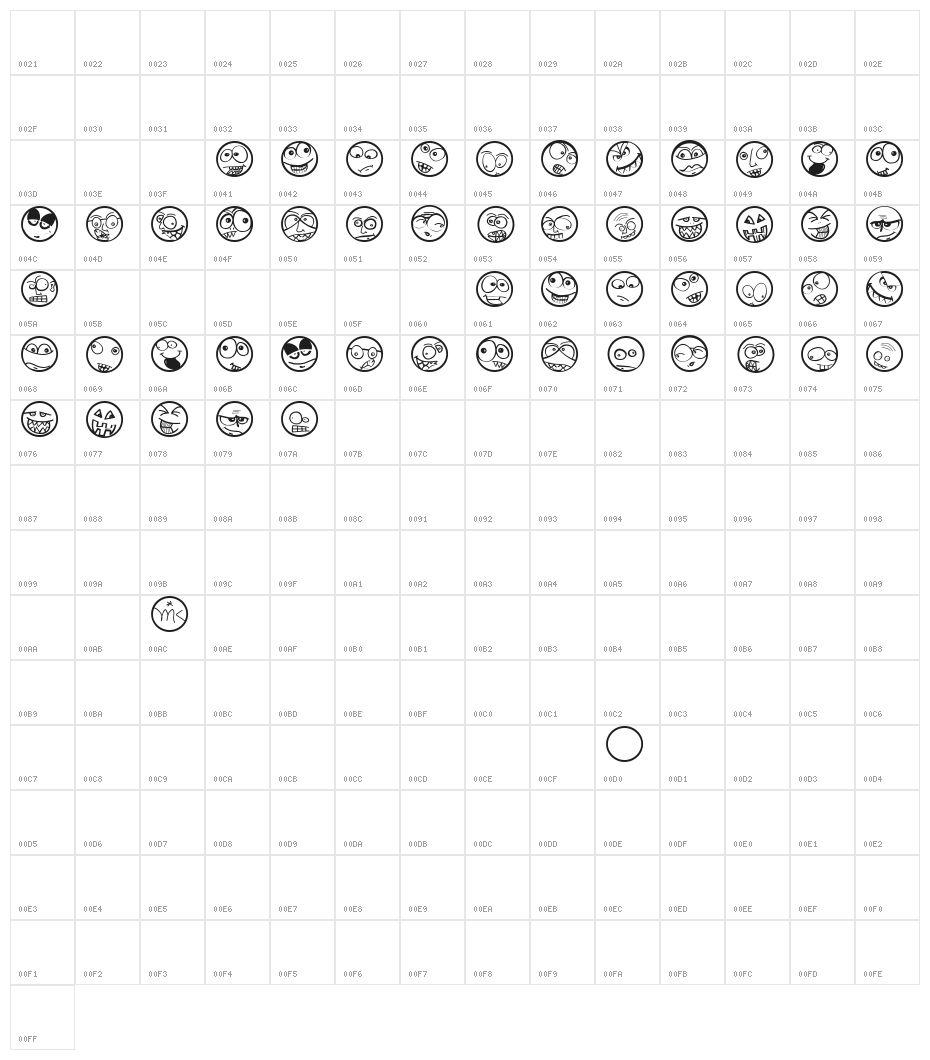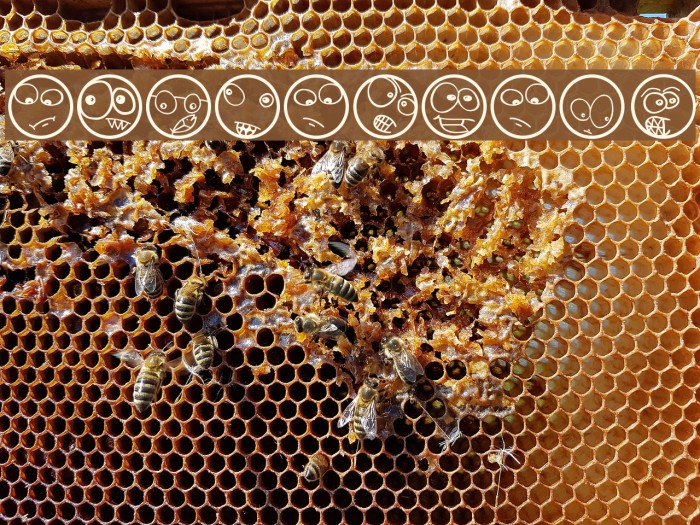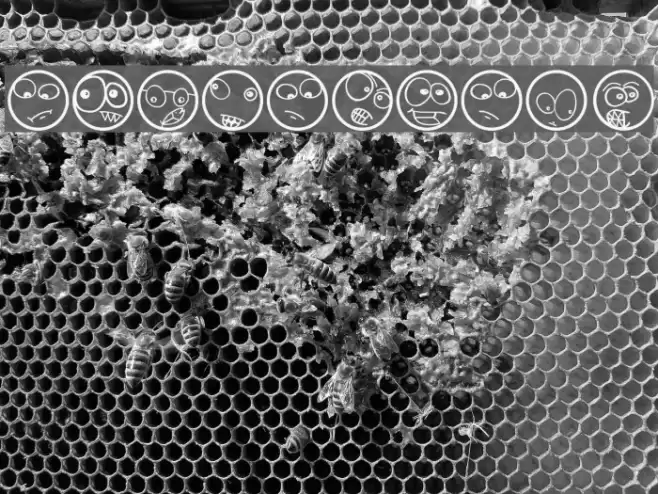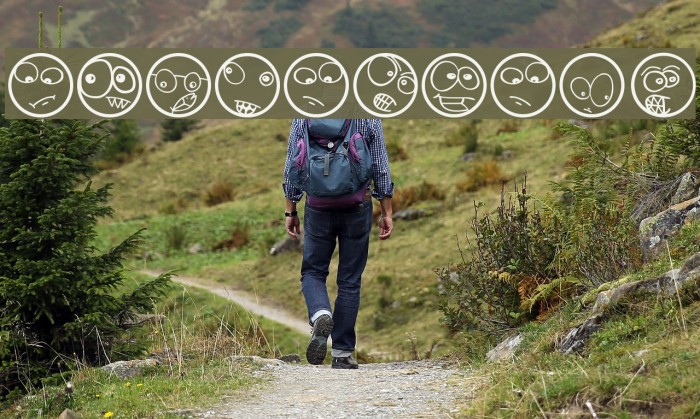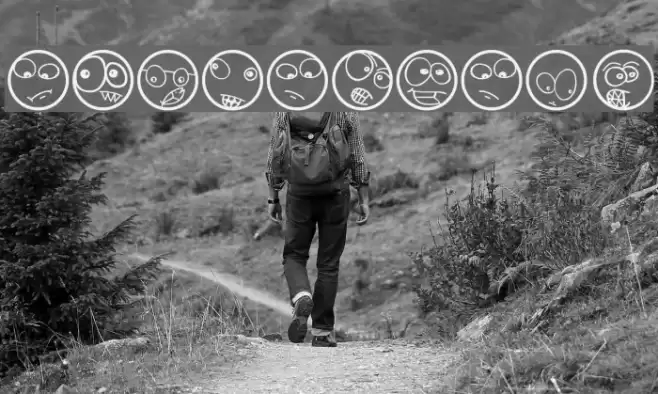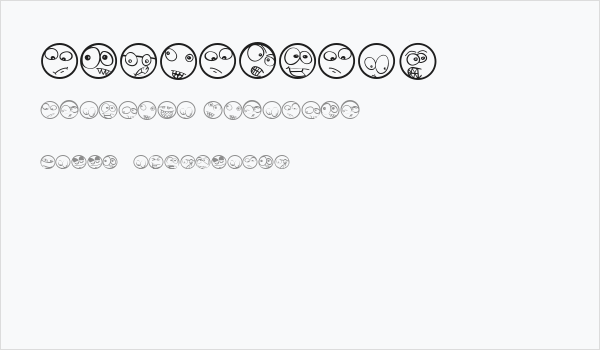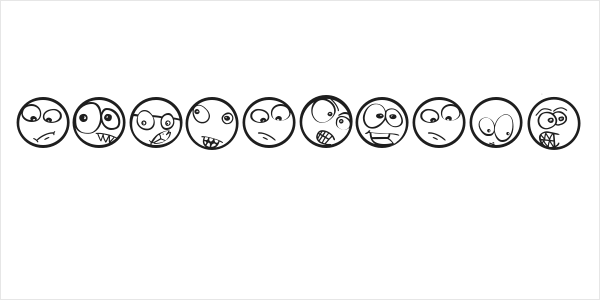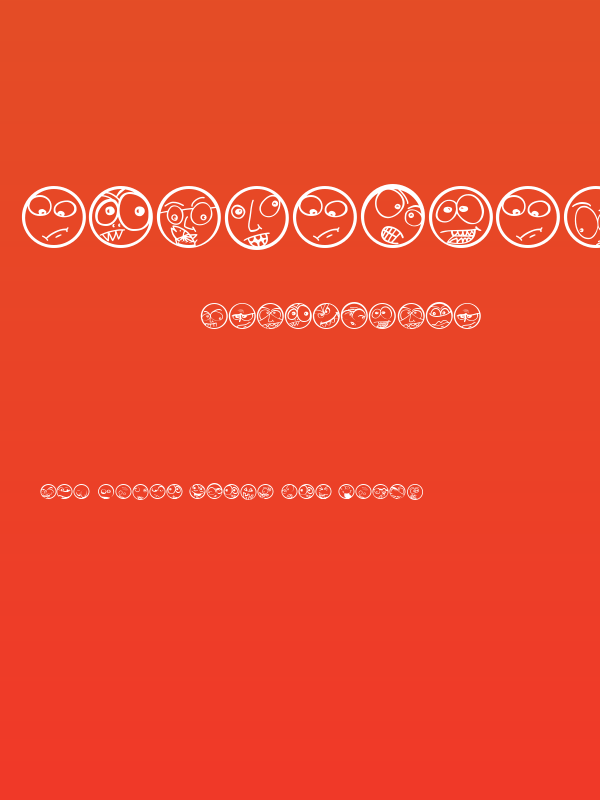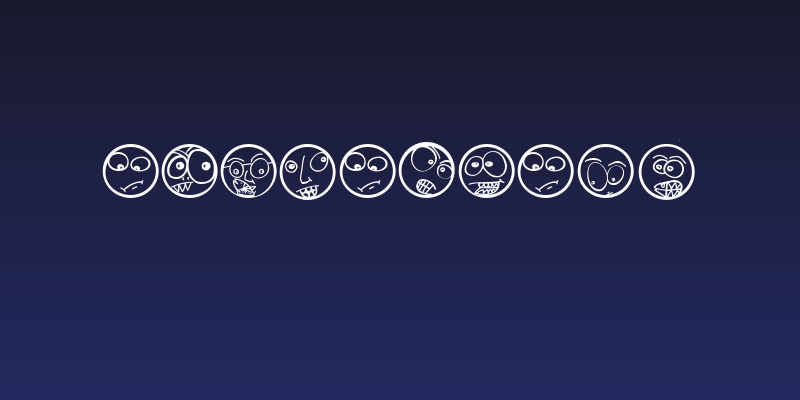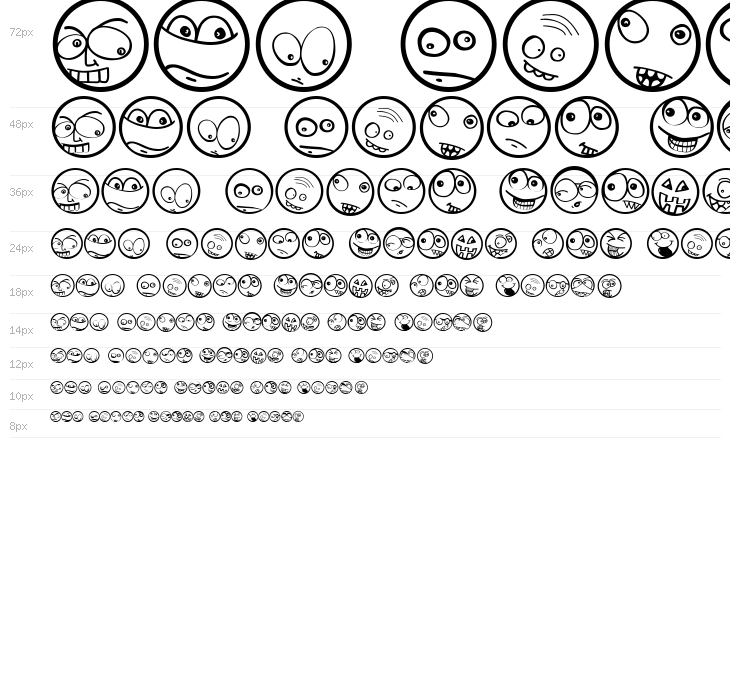
ComicFaces Font
ComicFaces Description
A playful and expressive decorative font where each character is represented by a unique cartoon face enclosed in a circle, featuring exaggerated facial expressions and bold outlines.
| Overall Style | Playful, Whimsical, Cartoonish |
| Use Case | Headlines, Posters, Logos, Themed graphics |
| Proposed Projects | ChildrenΓ’β¬β’s books, comic strips, party invitations, playful branding, educational materials. |